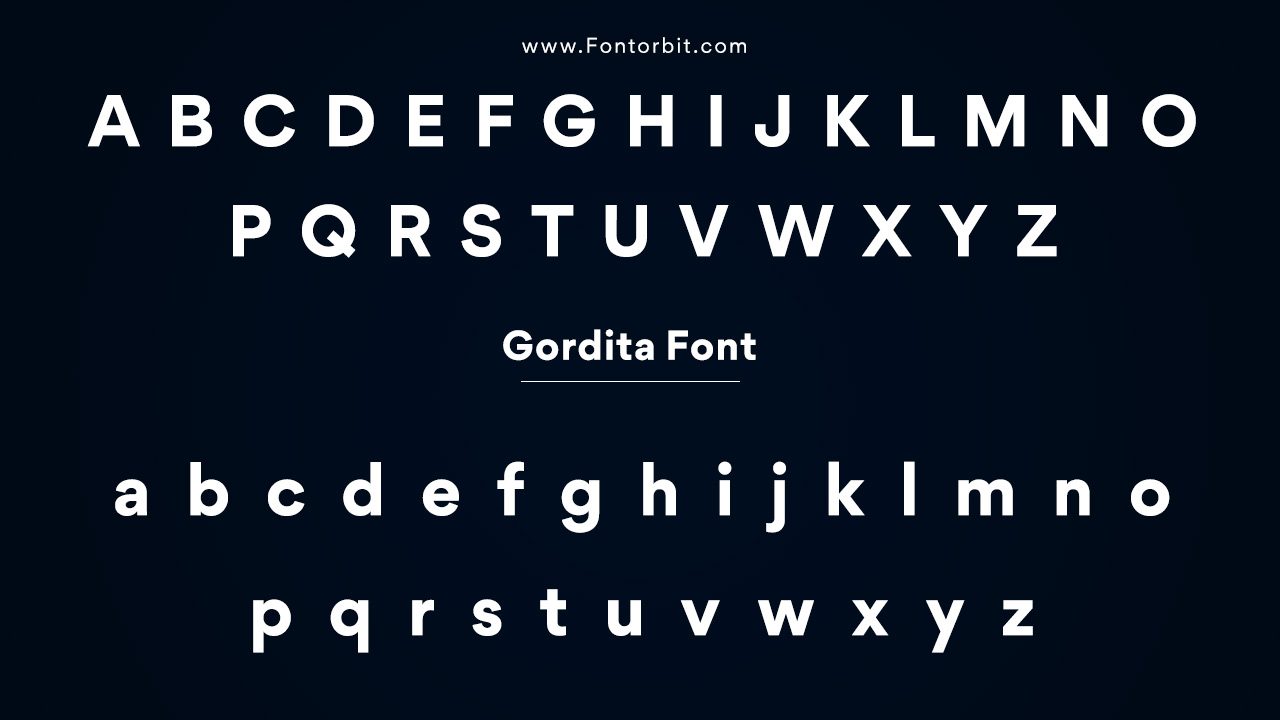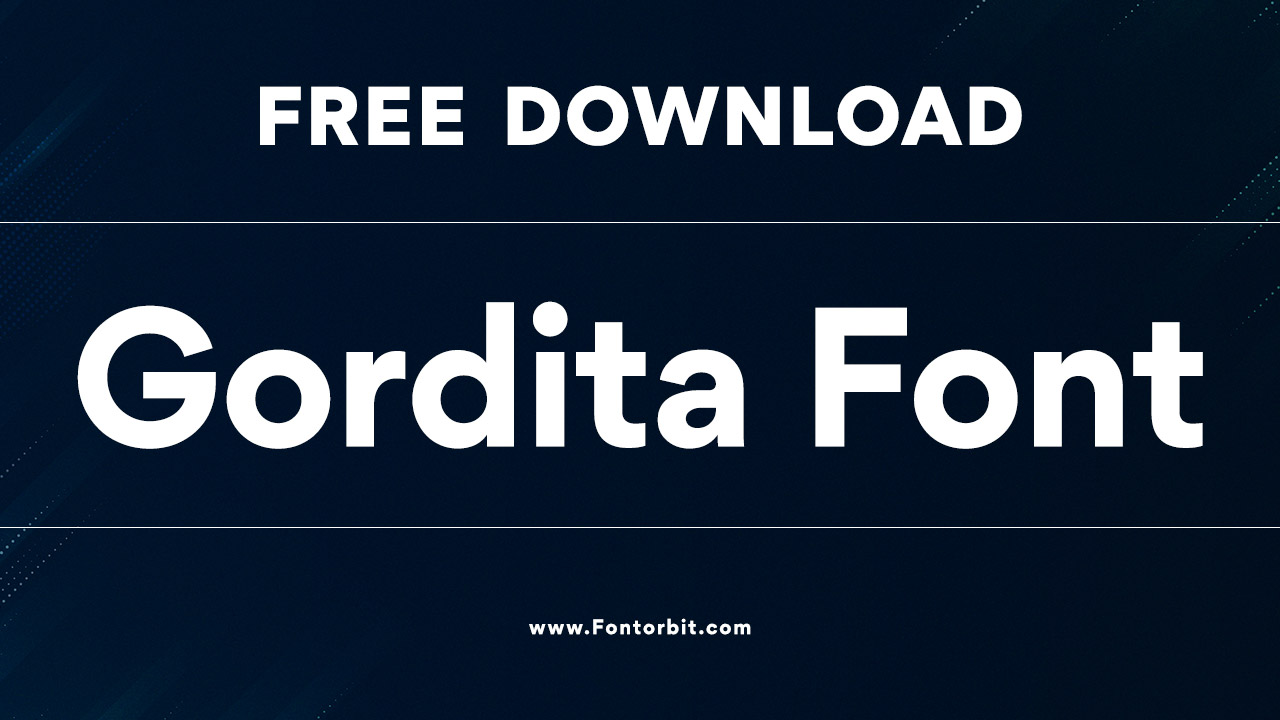
Thomas Gillett, an Australian designer, created the modern sans-serif typeface Gordita. Published in 2013, Gordita is part of the Gordita font family and has clean lines and geometric shapes. This versatile font is suitable for a variety of design projects and adds a contemporary touch to any text.
Gordita Family Includes
Gordita is a versatile font with various weights and styles that enhance its usability across different design contexts. The Gordita family includes:
- Gordita Regular
- Gordita Bold
Notable Uses Of Gordita
Gordita is a contemporary sans-serif typeface that has gained popularity for its clean, geometric design. Here are some notable uses of the Gordita font:
- Branding and Logos:
- Web and App Design:
- Advertising and Marketing Materials:
- Editorial Design:
- Corporate Communications:
- Event Branding:
- Fashion and Lifestyle Blogs:
Gordita is perfect for various design contexts, including:
- Website headers and navigation
- Marketing materials
- App interfaces
- Brand logos
Gordita is an excellent choice for modern design projects, combining functionality and style. Whether you’re creating a website, app, or branding materials, this font brings a fresh and contemporary look that stands out.
Gordita is a geometric sans-serif typeface known for its clean and modern look.